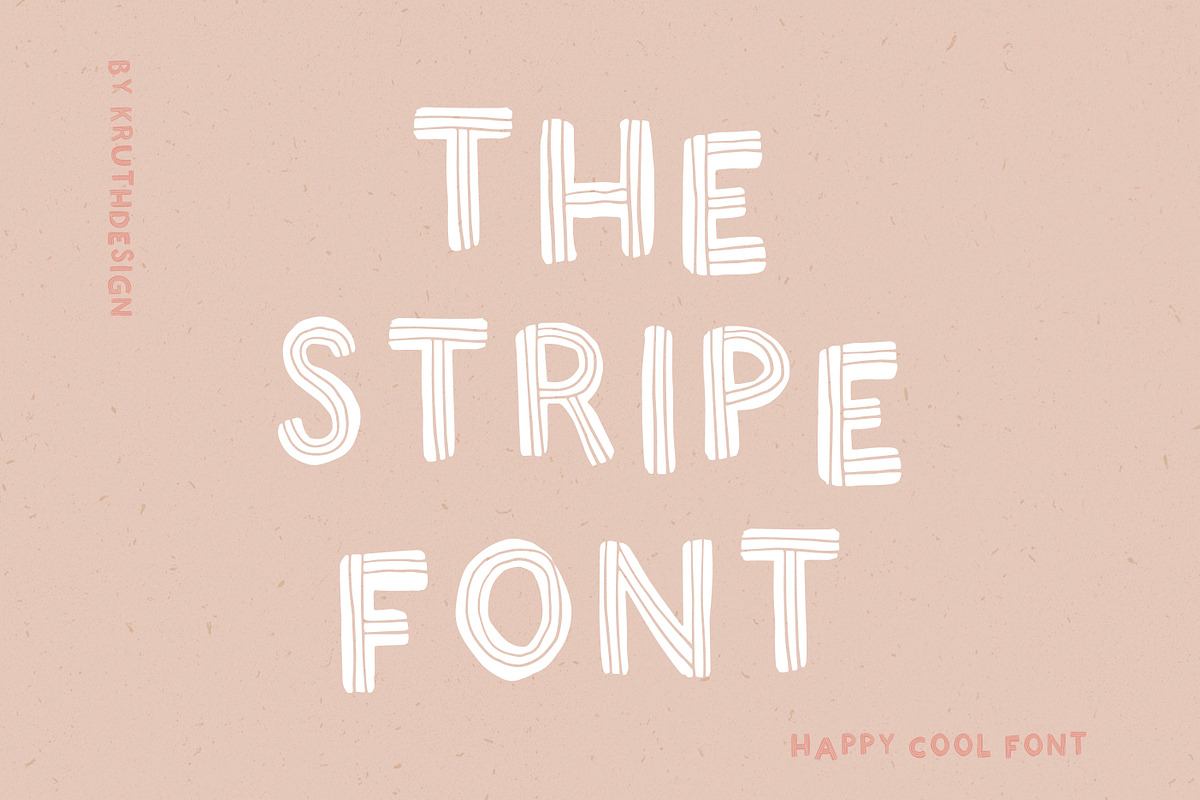
The Stripe Font / Striped Fonts Free Download
The Stripe Font / Striped Fonts Free Download is a bold and dynamic typeface designed to make your designs stand out. With its unique striped letterforms, this font adds a playful and modern touch to your projects. Perfect for creating eye-catching logos, posters, advertisements, branding, and social media content, The Stripe Font brings an energetic and creative flair to your designs. Whether you're working on a contemporary brand, an event poster, or a creative marketing campaign, The Stripe Font / Striped Fonts Free Download offers the opportunity to explore its striking design in personal projects before purchasing a commercial license. Add a fresh and bold look to your work with this innovative and visually impactful striped font.